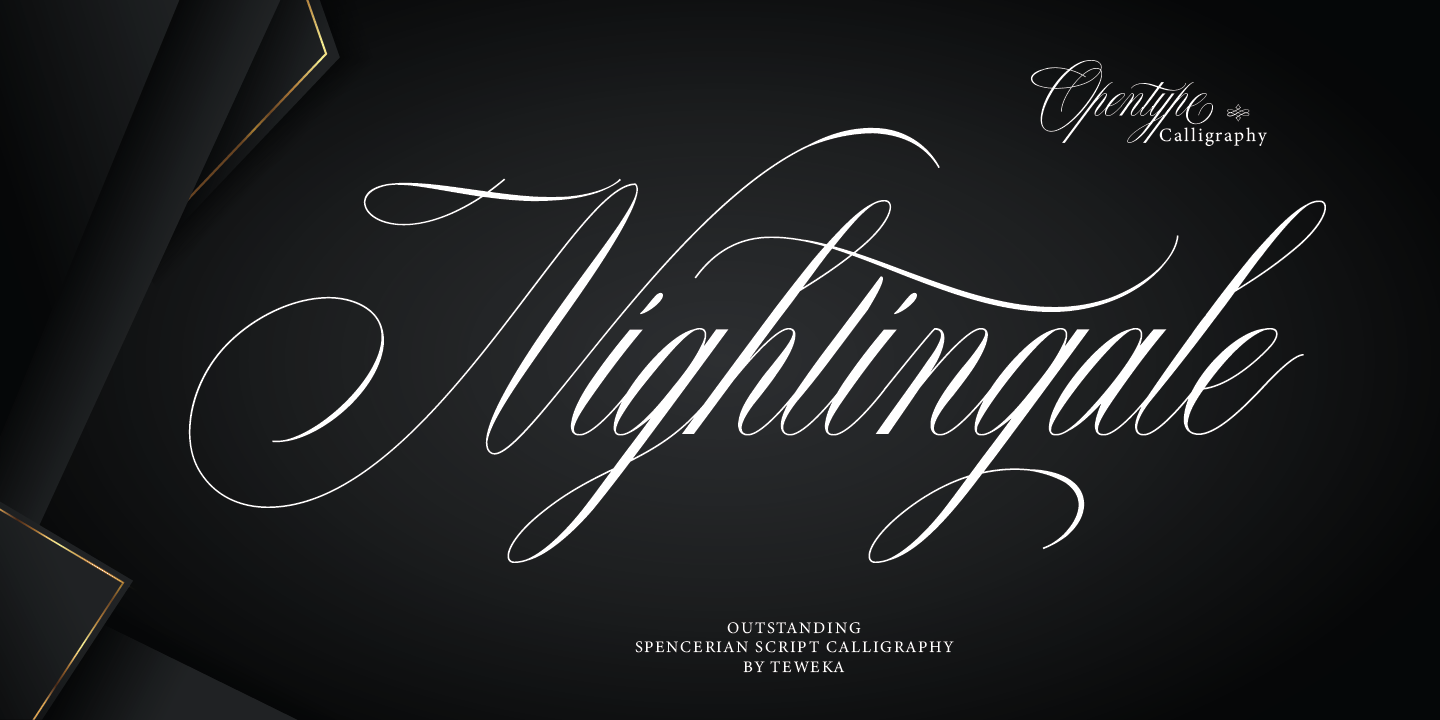
The Nightingale Font Free Download is ideal for wedding invitations, branding, posters, and editorial layouts, offering an elegant, calligraphic script aesthetic.
This font is exciting because its hand-drawn, brush-style design with swashes and alternates delivers a natural, romantic flair perfect for sophisticated projects.
The Nightingale family includes a single Regular style with contextual alternates, ligatures, and swashes, ensuring versatile design options.
Elevate your designs with the Nightingale Font Free Download, a stunning script typeface designed by Francis John and published by Francis Studio in 2016. Known for its flowing, calligraphic strokes, Nightingale features 264+ glyphs, including swashes and stylistic alternates, making it perfect for creating romantic headlines, logos, or invitations. Available in OTF, TTF, and WOFF formats, it supports multiple languages and ensures crisp rendering across print and digital platforms. Ideal for projects needing a personal, artistic touch, this font adds elegance to branding or posters. As 2025 design trends favor expressive, handwritten typography, downloading Nightingale Font Free Download keeps your work captivating and timeless.